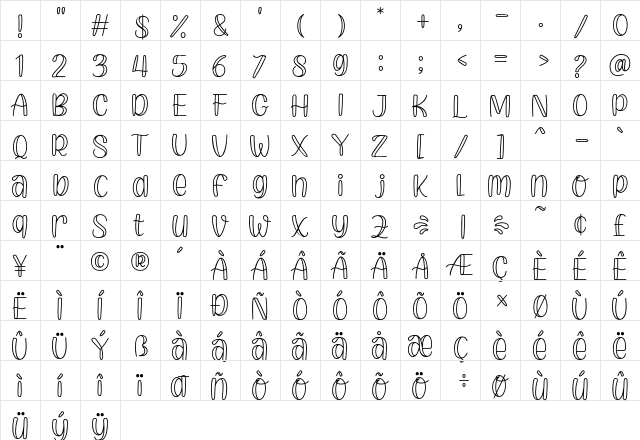
Orange Slices Outline Regular
Design Context for Orange Slices Outline Typeface
Orange Slices Outline brings ornamental detail and strong personality to headlines and identities, where visual impact matters more than quiet functionality.
Font Pairing: Pair with a clean neutral sans-serif for body copy to let Orange Slices Outline's character lead without overwhelming the composition.
Pro Tip: Use Orange Slices Outline exclusively at display sizes — it was designed to be seen, not read at length. Let a neutral companion handle body copy.